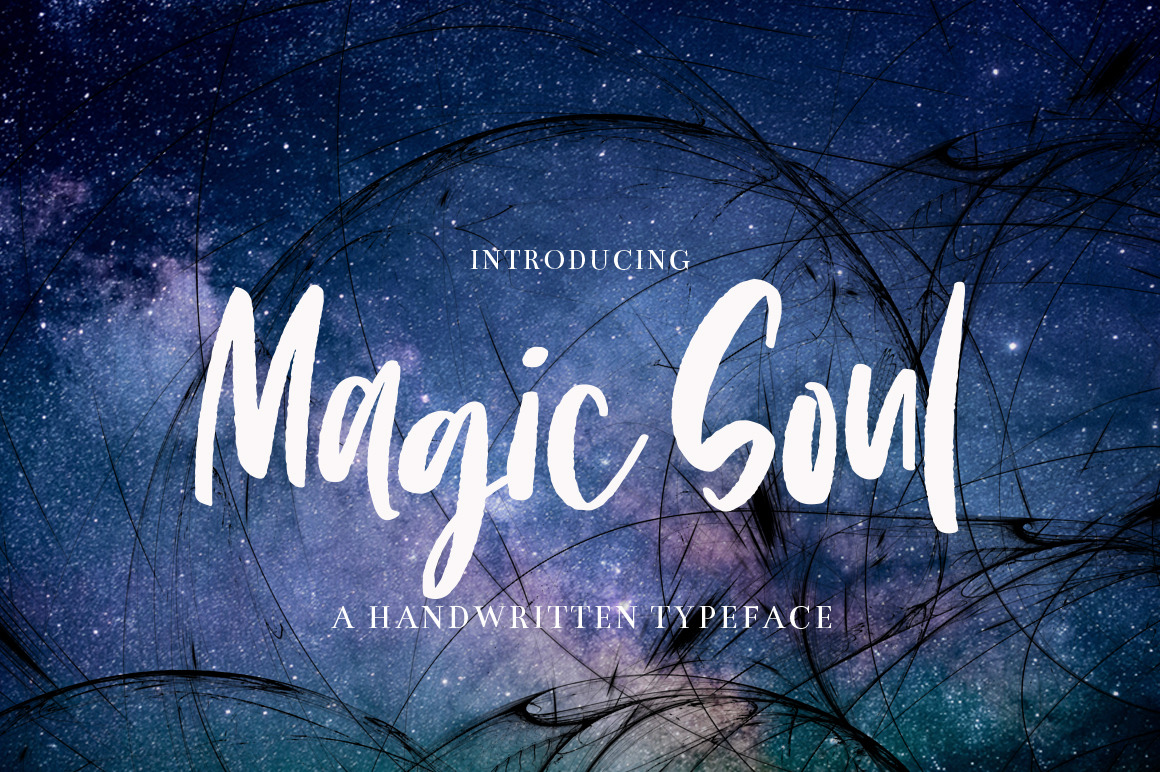
Magic Soul-a hand-written typeface
This is Magic Soul, a new and fun hand-written typeface, made to give your projects a fresh, hand-made look. Use it on your logos, invitations, packaging, and more!
Works beautifully to create typography-based quotes on posters and social media images :)
Also looks amazing in all-caps!